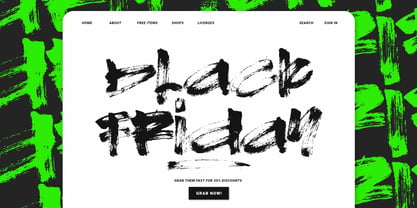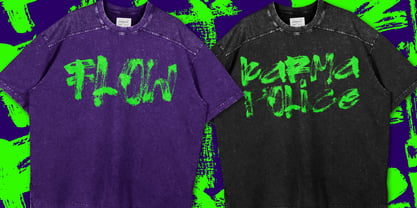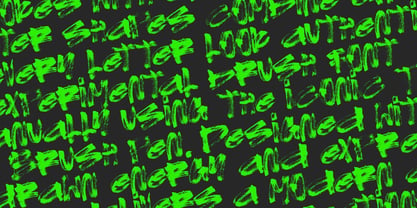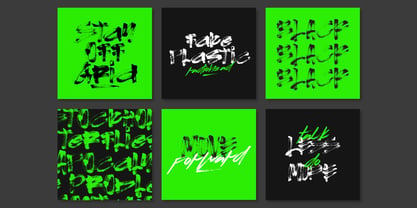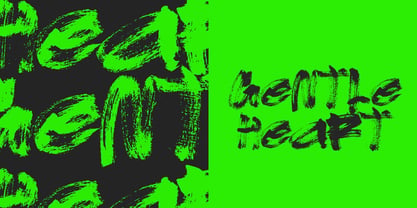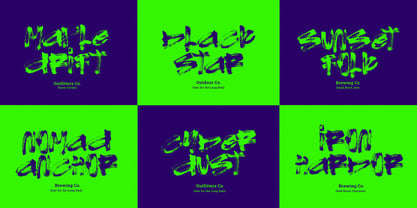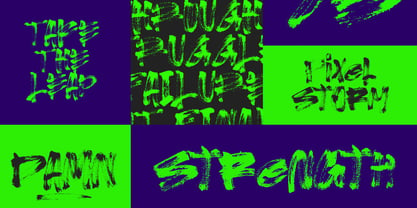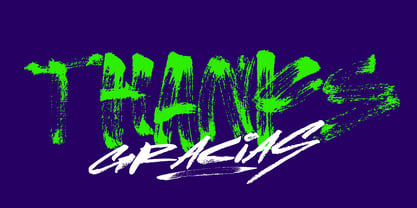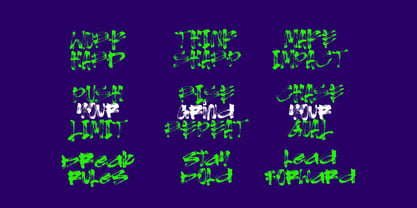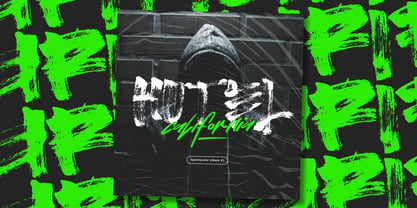
Drift Brush
by Ferry Ardana Putra
The Drift Brush Font Family was designed by Ferry Ardana Putra and published by Ferry Ardana Putra. Drift Brush contains 1 styles. More about this family
Drift – Experimental Brush Font is a raw and expressive brush typeface created using the Tombow Fudenosuke Brush. Built from real hand-painted strokes, Drift combines aggressive brush movement, rough ink textures, and imperfect letterforms to create a bold and energetic display font.
Unlike clean and polished brush fonts, Drift embraces the unpredictable character of real brush lettering. The strokes are intentionally rough, distressed, and irregular, creating a strong handmade appearance with plenty of natural texture and movement.
Each letter carries the marks of the brush, from dry and broken strokes to heavy ink buildup and loose paint-like details. This gives Drift its distinctive raw aesthetic and makes it especially effective for designs that need attitude, energy, and a handcrafted edge.
Drift Experimental Brush Font includes a complete uppercase and lowercase character set, numerals, punctuation, symbols, and decorative swashes. With its expressive character set and authentic brush texture, Drift gives designers plenty of freedom to create bold and unconventional typography.